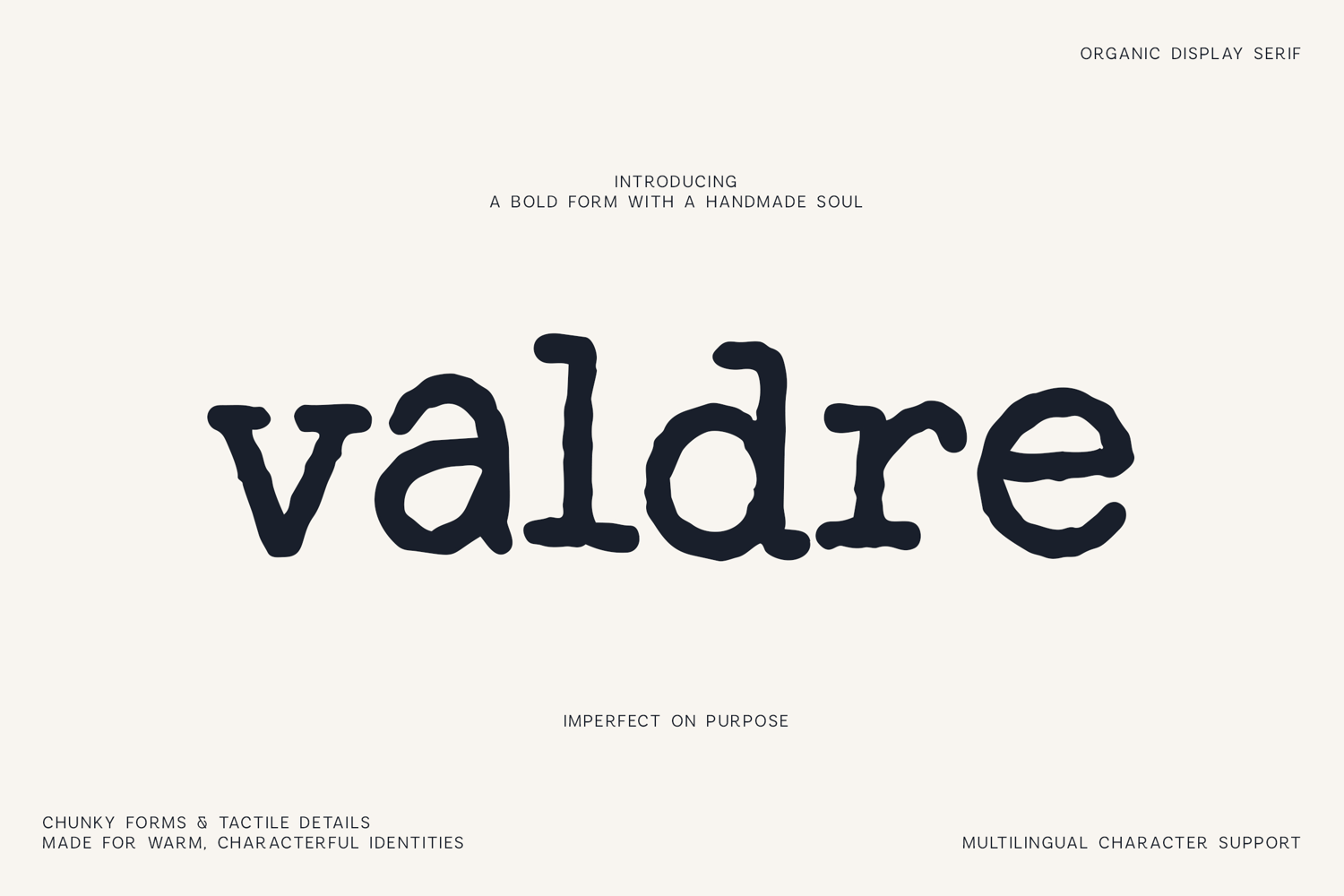
Valdre Handmade Serif Font for Branding
Give your designs a more authentic personality with Valdre, a handmade serif font created for distinctive logos, packaging and bold visual identities.
Valdre combines chunky serif forms with irregular edges and subtle differences throughout the alphabet. The result feels intentionally imperfect, giving words the personality of hand-shaped lettering rather than perfectly digital typography.
Its strong forms make it especially effective for short names, product titles and statement headlines.
- Logo design
- Brand identities
- Food packaging
- Coffee branding
- Restaurant graphics
- Product labels
- Posters
- Book covers
- Merchandise
- Editorial headlines
- Small branding
Valdre is especially useful for brands that want to feel crafted, independent and character-driven rather than overly corporate.
Use this handmade serif font when you need strong typography with warmth, texture and a naturally imperfect finish.